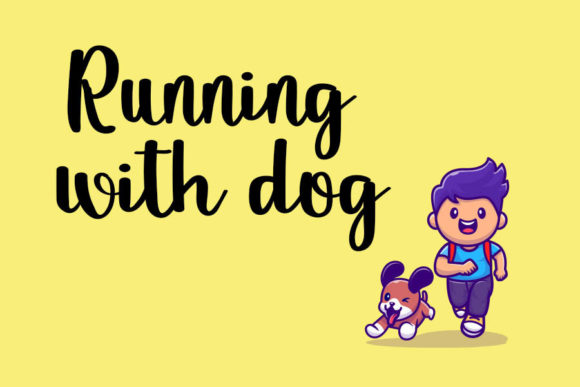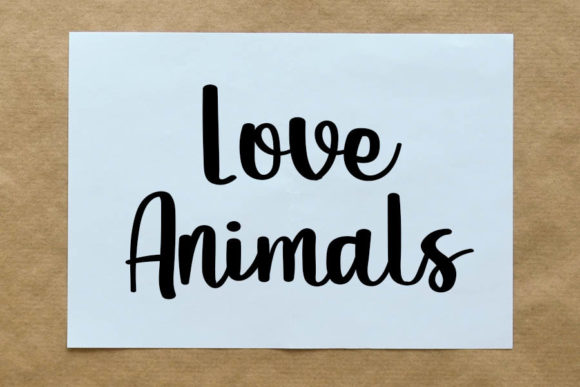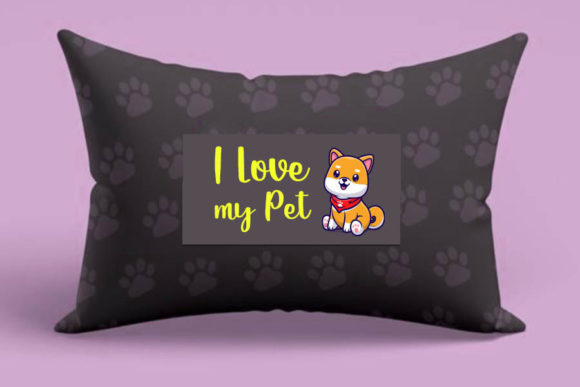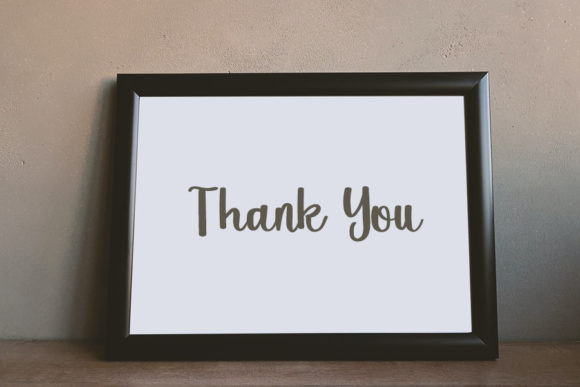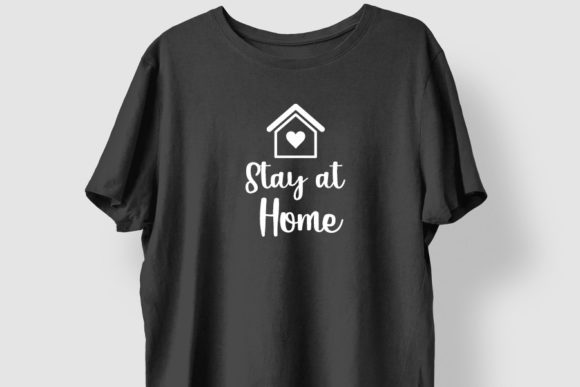
Dalmatian Font
About Dalmatian Font
Dalmatian is a dainty and flowing handwritten font. Sweet and joyful, this font will be ideal for writing wedding invitations, cards or any other design that may need a romantic, personalized touch!